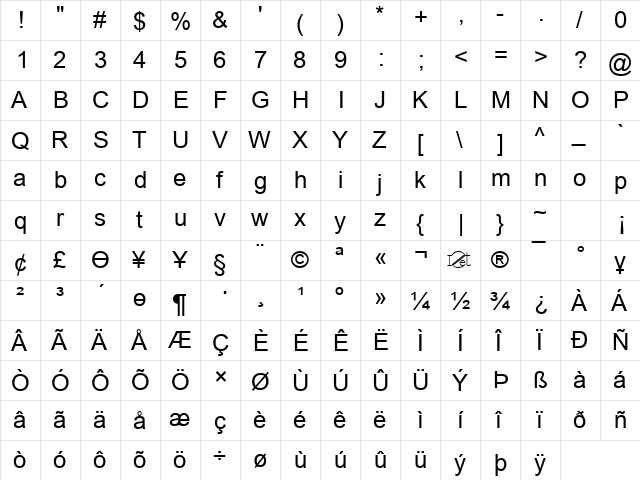
KZ Arial Regular
Design Context for KZ Arial Typeface
KZ Arial takes a measured approach to typography — its balanced proportions and neutral character make it a reliable workhorse for both digital and print work.